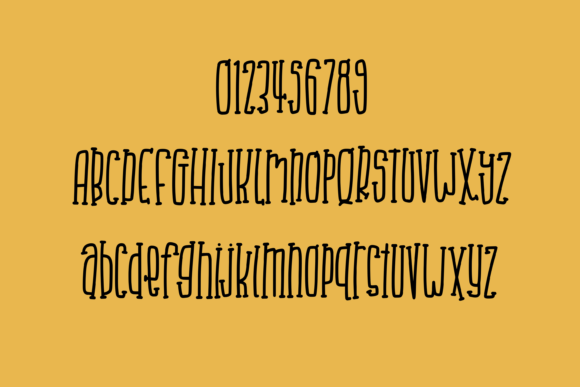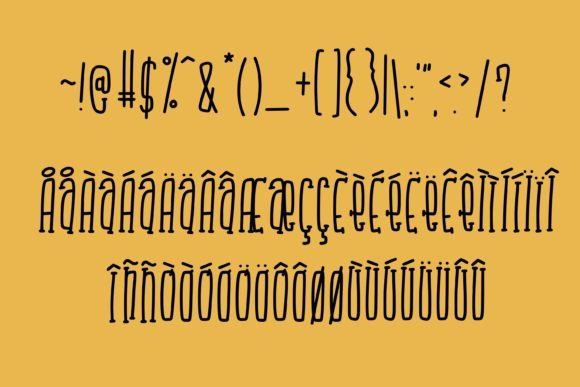
Introduction to Mango Lemonade Font
Introducing Mango Lemonade, a playful and quirky font with a refreshing vibe.
Perfect for adding a fun and unique twist to your projects, this font stands out with its wavy lines and bubbly appearance Ideal for summer-themed designs, creative branding, greeting cards, children’s book covers, and more.
Key Features of Mango Lemonade Font